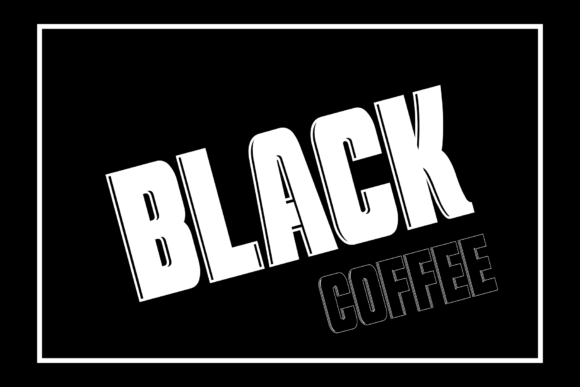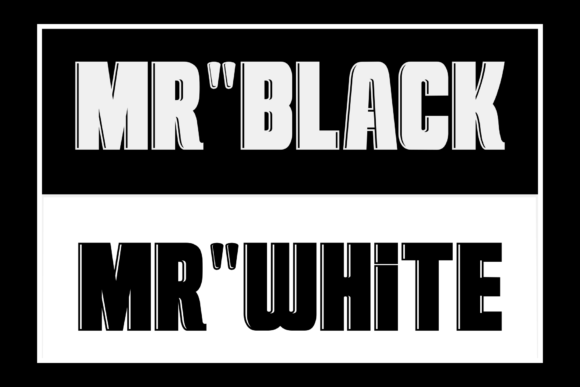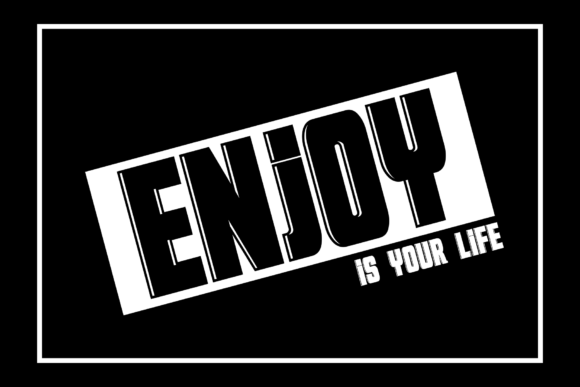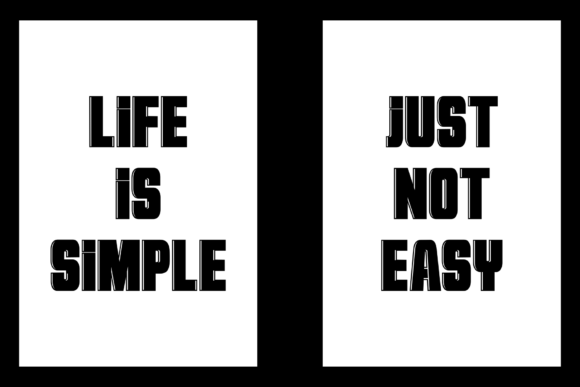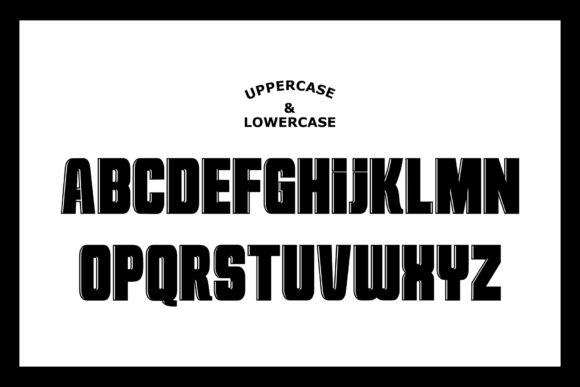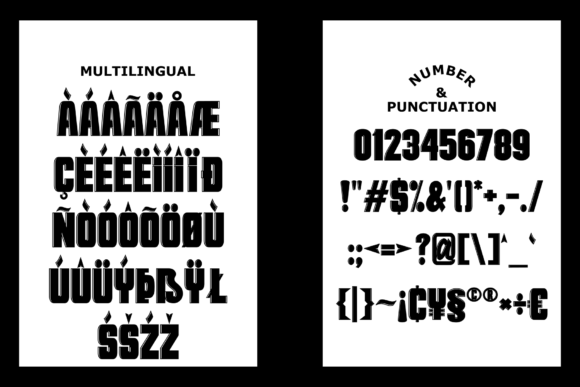
Introduction to Ribheud Font
There’s nothing quite like the rush of excitement when you stumble upon the perfect font for your creative project. It’s like finding that elusive missing piece that brings your design to life. For me, that moment came when I discovered the Ribheud Font. Its simple, bold, and chunky lettering instantly caught my eye, and I knew I had to learn more about it.
As a designer, having access to high-quality fonts like Ribheud Font can be a game-changer. Not only does it add a unique touch to your designs, but it also makes them stand out from the crowd. Whether you’re working on a personal project or a client’s brief, having a reliable design resource like Ribheud Font can be a lifesaver.
Key Features of Ribheud Font
• High-quality font designed for creative projects, perfect for those seeking a unique design resource.
• Characteristics include a bold and elegant design, making it ideal for headings and titles.
• Perfect for use in various creative projects, including logos, brochures, and business cards.
Honest Review: Ribheud Font
As a designer, I’m always on the lookout for high-quality fonts that can elevate my creative projects. Recently, I had the chance to try out the Ribheud Font, and I’m excited to share my thoughts.
• ✨ High-quality design: The Ribheud Font is meticulously crafted with attention to detail, making it perfect for any design project.
• ✨ Versatility: This font is suitable for a wide range of creative projects, from logos to typography-based designs.
• ⚠️ Limited character set: The Ribheud Font is not a complete font family, which may be a drawback for designers who require a full range of characters.
• ⚠️ Limited font weights: The font only comes in a few weights, which may not be sufficient for designers who need more flexibility in their typography.
Overall, I’m impressed with the Ribheud Font’s quality and versatility. While it has some limitations, it’s an excellent resource for designers who are looking for a high-quality, free font. I’d definitely recommend it for any creative project, but be aware of its limitations before making a final decision.
Using Ribheud Font in Creative Projects
Tips for Getting the Most Out of Ribheud Font
To get the most out of Ribheud Font, experiment with different font sizes and styles to create visually appealing designs.
Common Use Cases for Ribheud Font
Ribheud Font is commonly used in:
• Graphic design projects
• Branding and marketing materials
• Web design projects